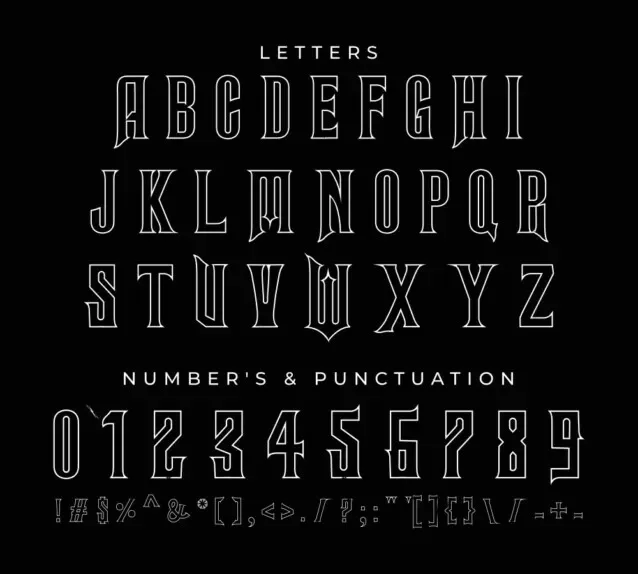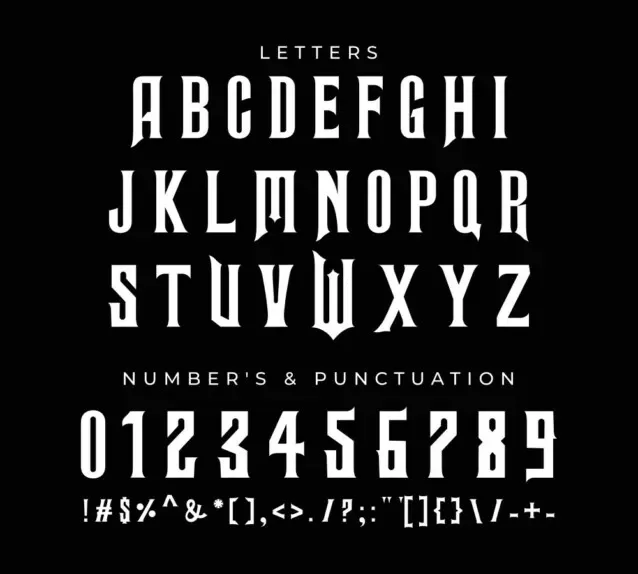
Wicked Font captures the bold, mystical energy inspired by the Land of Oz and the theatrical style of the upcoming Wicked movie by Jon M. Chu. It blends art nouveau elegance with a dramatic, fantasy-inspired twist, perfect for designs that need a bit of spellbinding flair.
- Style: Decorative Display / Art Nouveau
Inspired by the Wicked (2024) title, this Font mixes smooth curves with sharp, bold details. It's a popular pick for Halloween, fantasy, and dramatic designs. With over 35,000 downloads in just a few months, it's quickly become a favorite in creative circles.
- Designed for headlines, theatrical graphics, and magical themes
- Whimsical curves with gothic overtones
- Inspired by theatrical and fantasy aesthetics
- Ideal for horror, fantasy, or magical branding
- Not meant for long text, best used in titles or headers
Wicked has a bold personality, so it works best in designs that need drama, think Halloween posters, fantasy merch, or mystical branding. To keep things readable, try pairing it with a clean, simple font like Poppins or Open Sans for the smaller text.